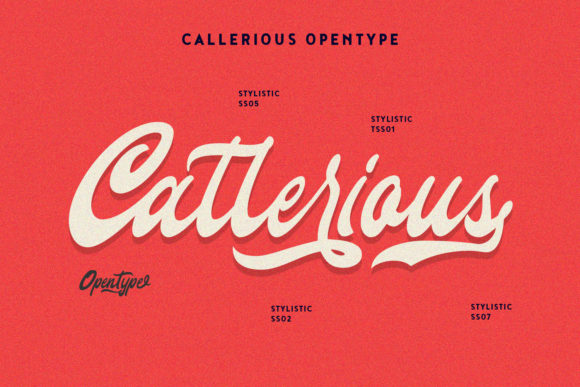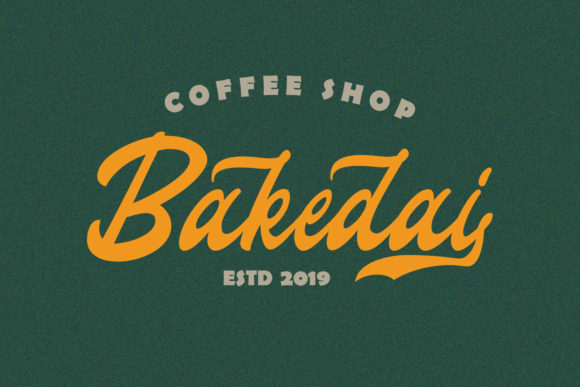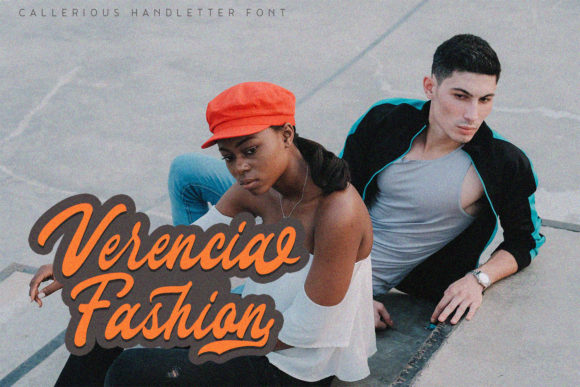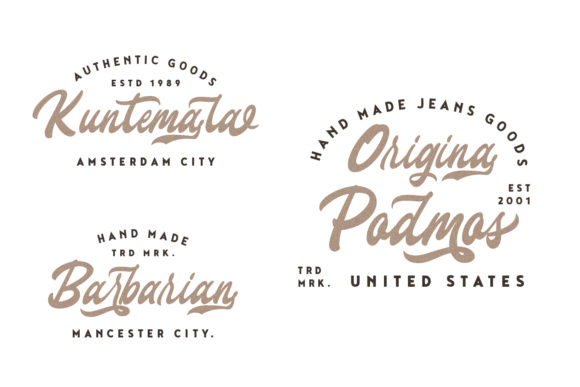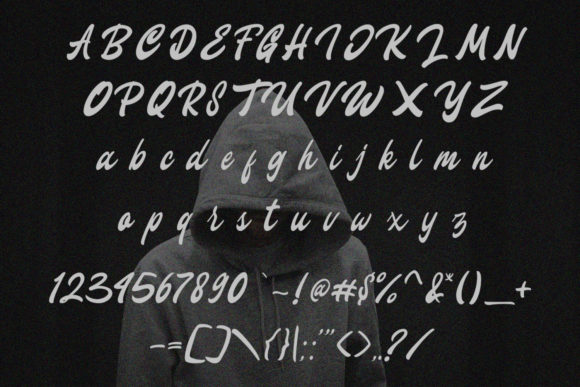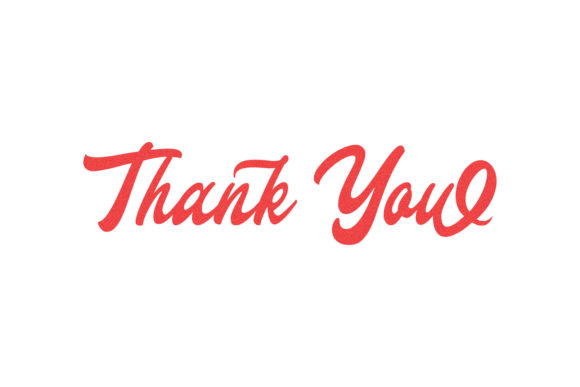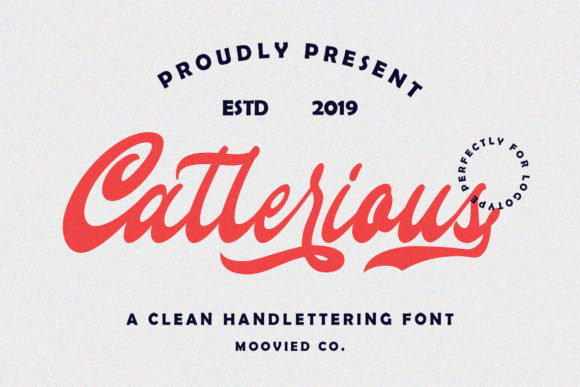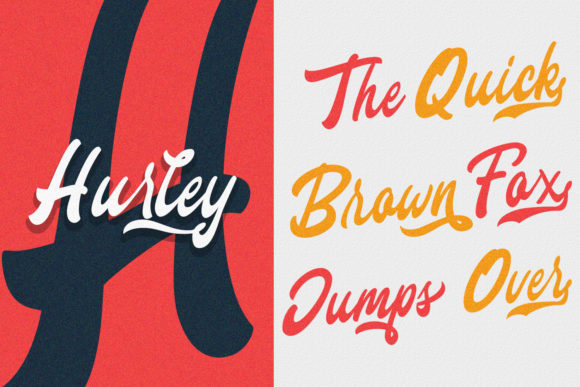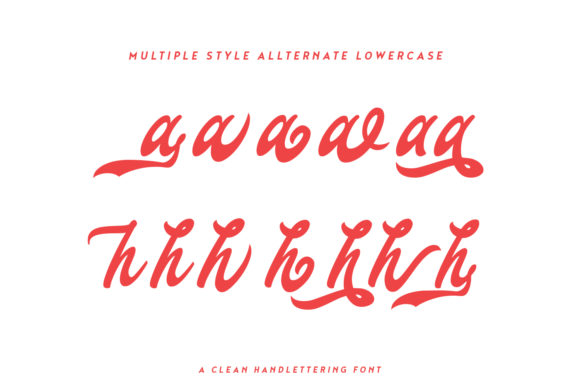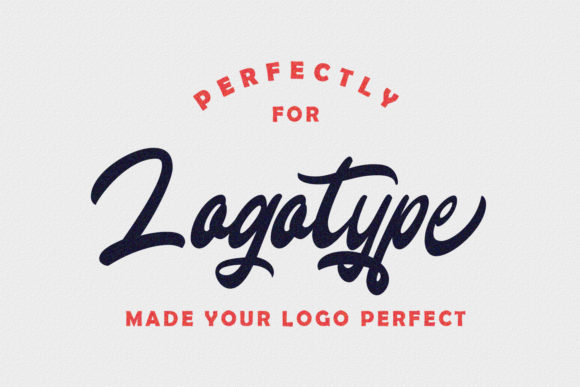
Callerious Font
Inspired by classic advertisements, Callerious is a unique and bold handwritten font. It will elevate any design project with its timeless charm.